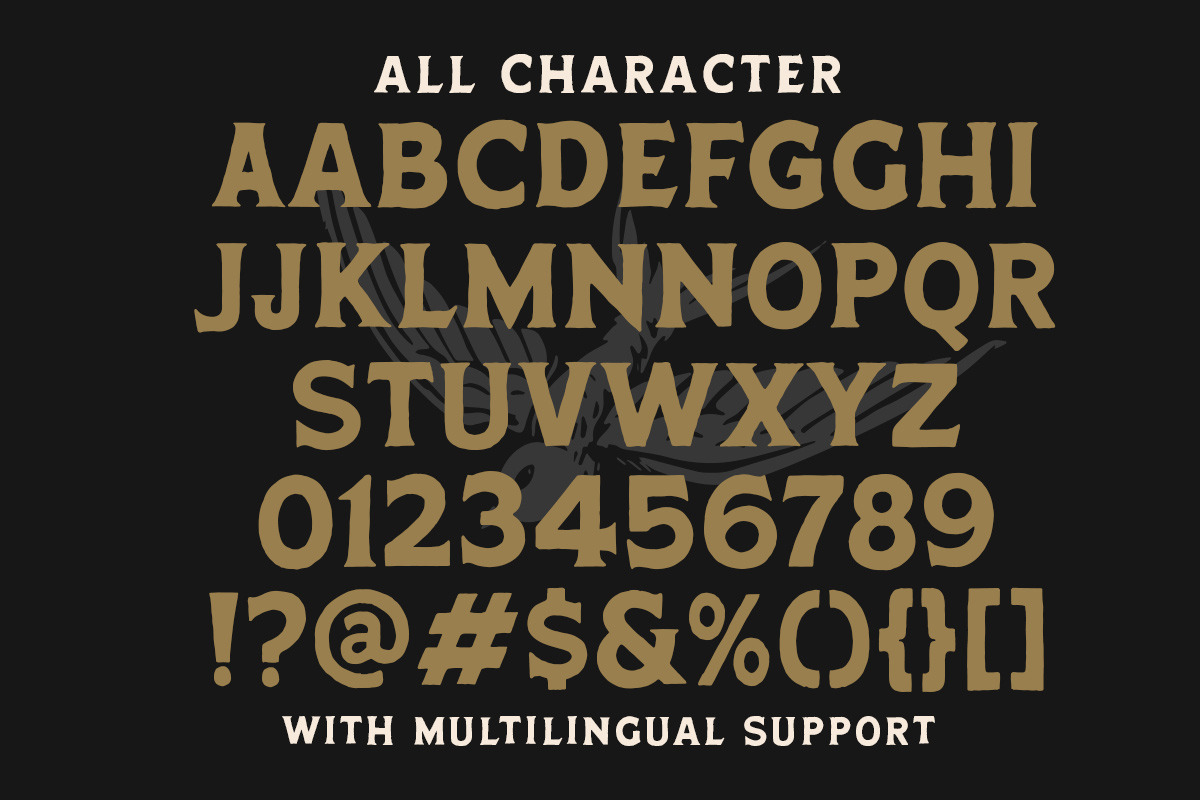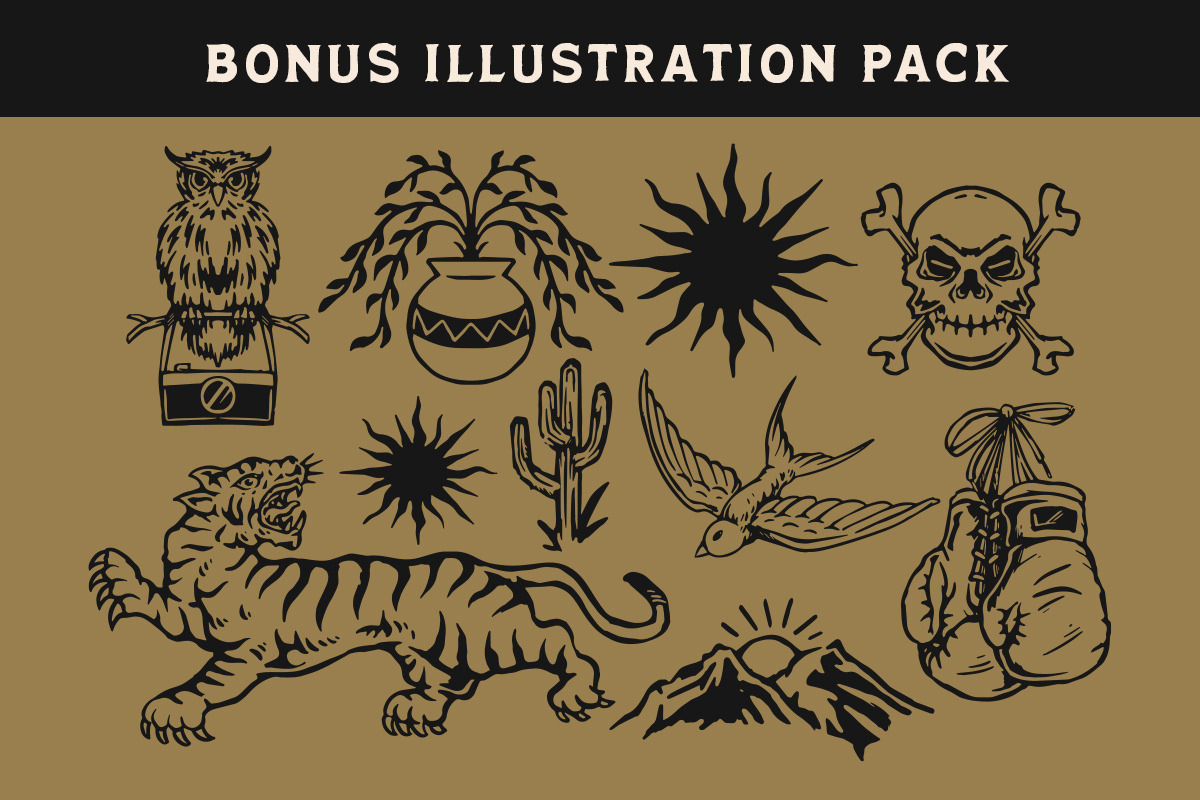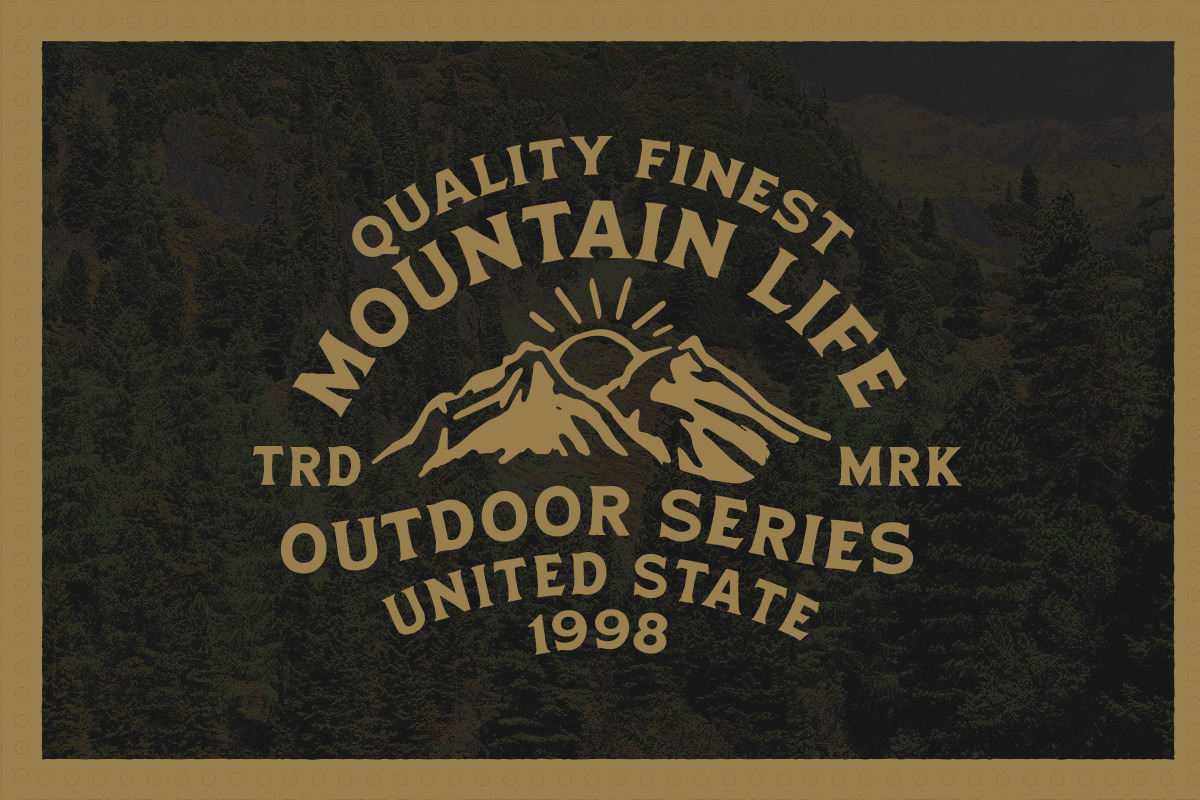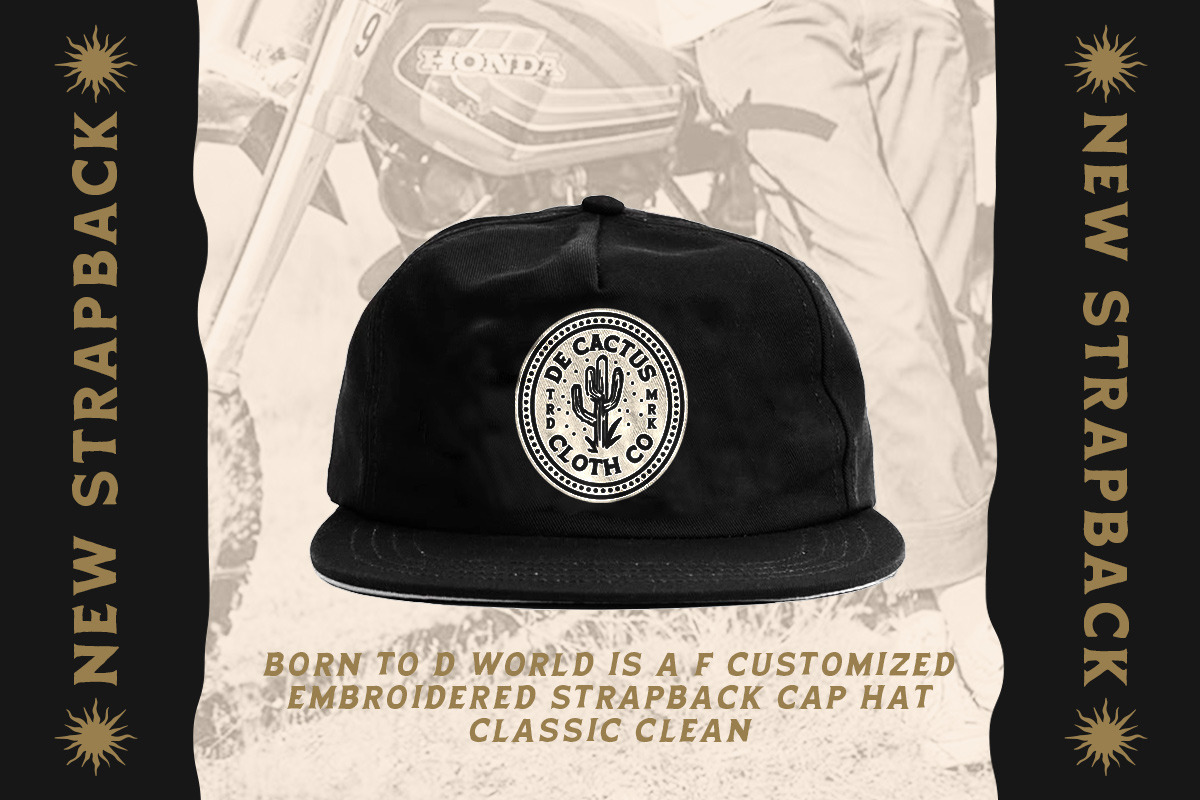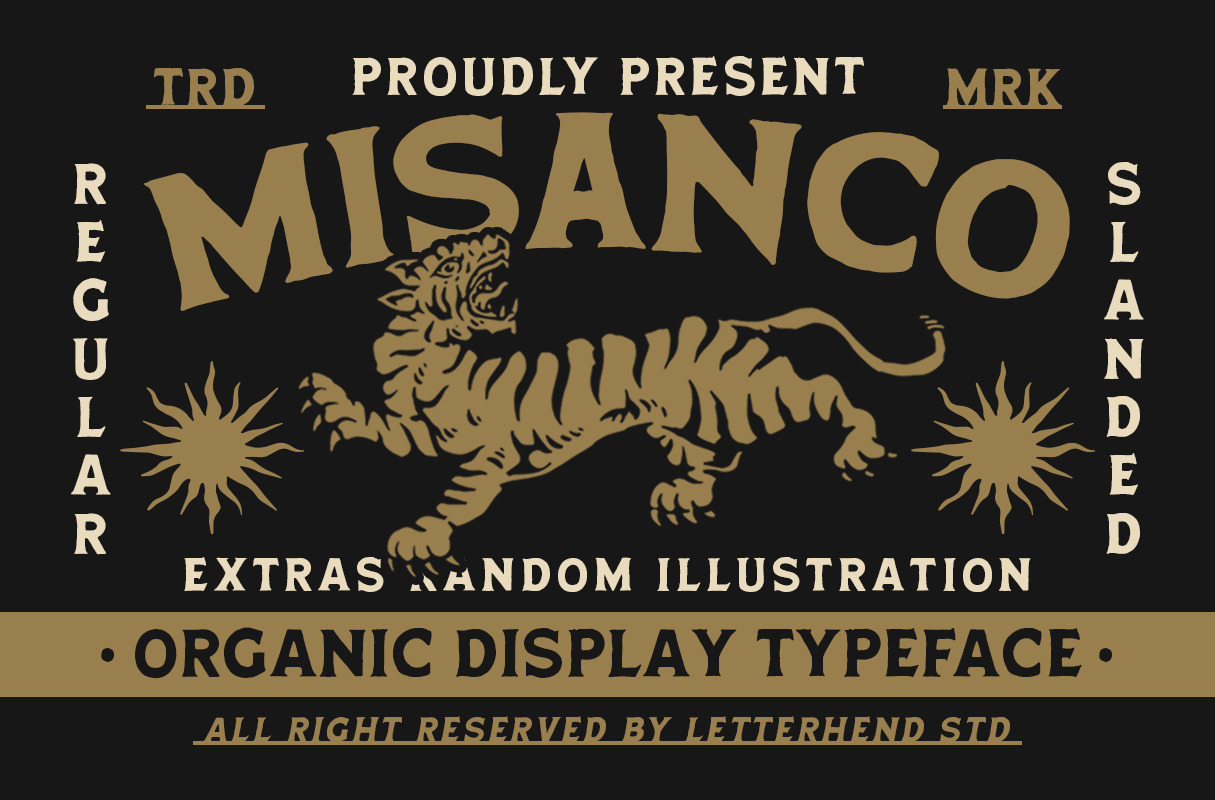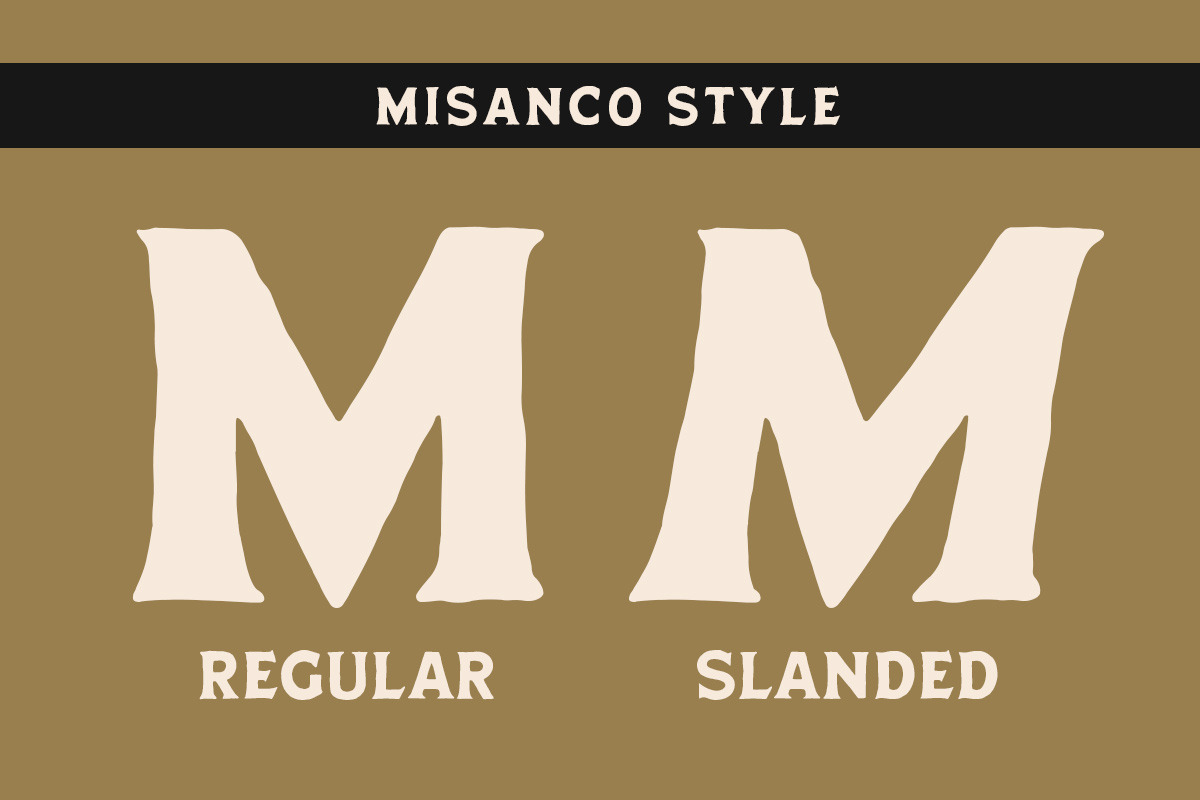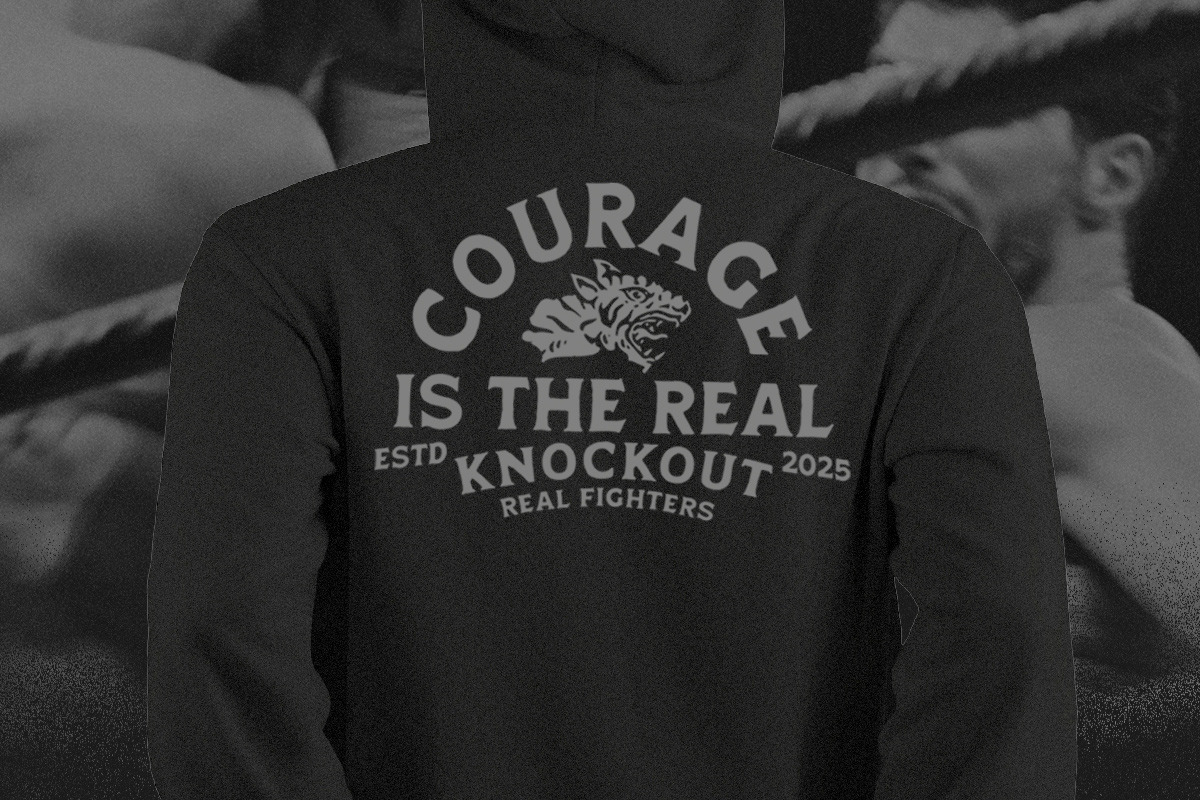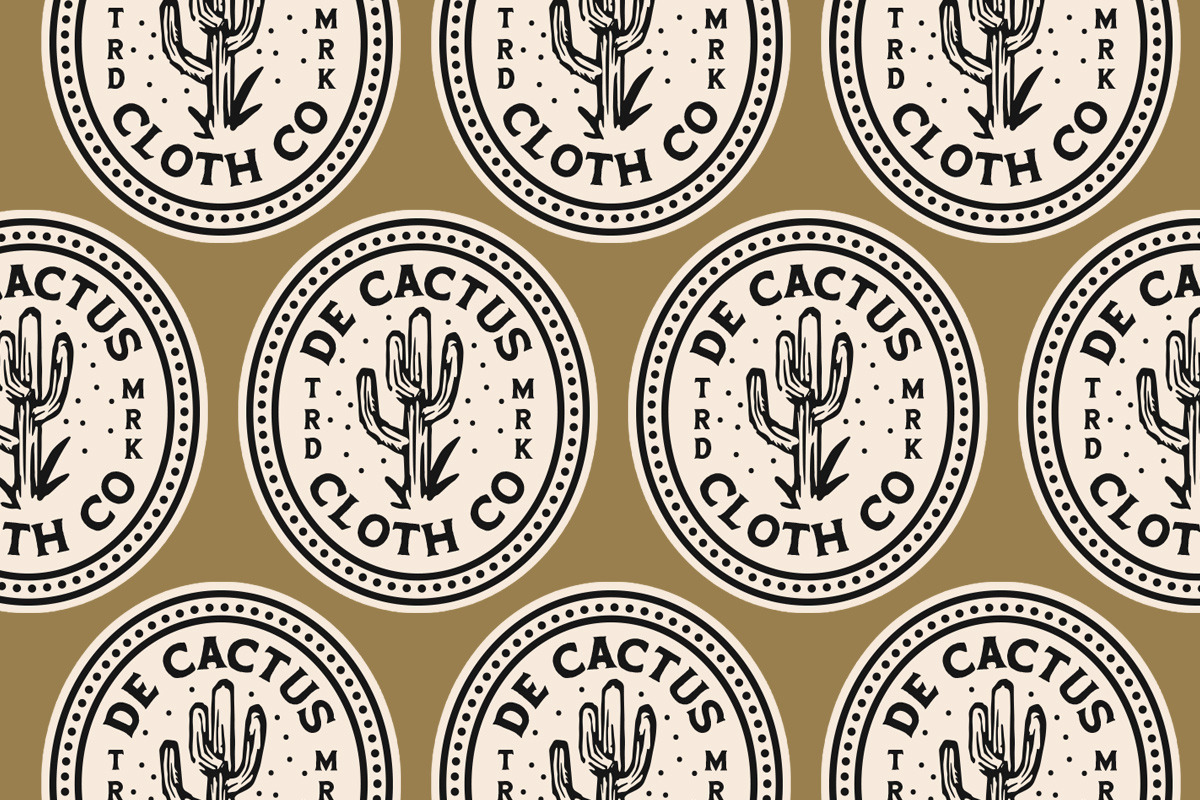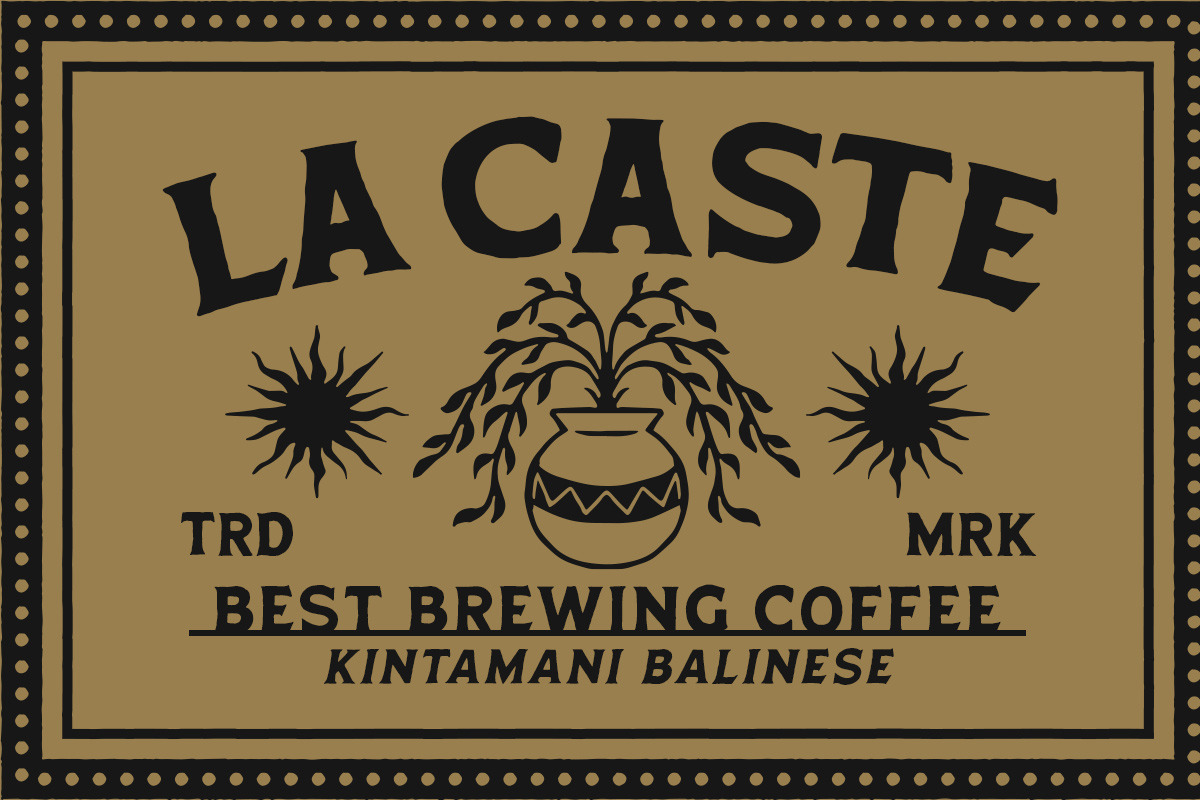
Misanco Organic Display Font
Misanco is an organic display typeface with a bold yet artistic personality. It carries a strong vintage-inspired style with expressive, handcrafted letterforms that feel raw and adventurous. Available in Regular and Slanted versions. Its unique shapes evoke a masculine, rugged vibe with a touch of retro charm, making it perfect for creative projects that want to stand out while keeping an authentic handcrafted feel.